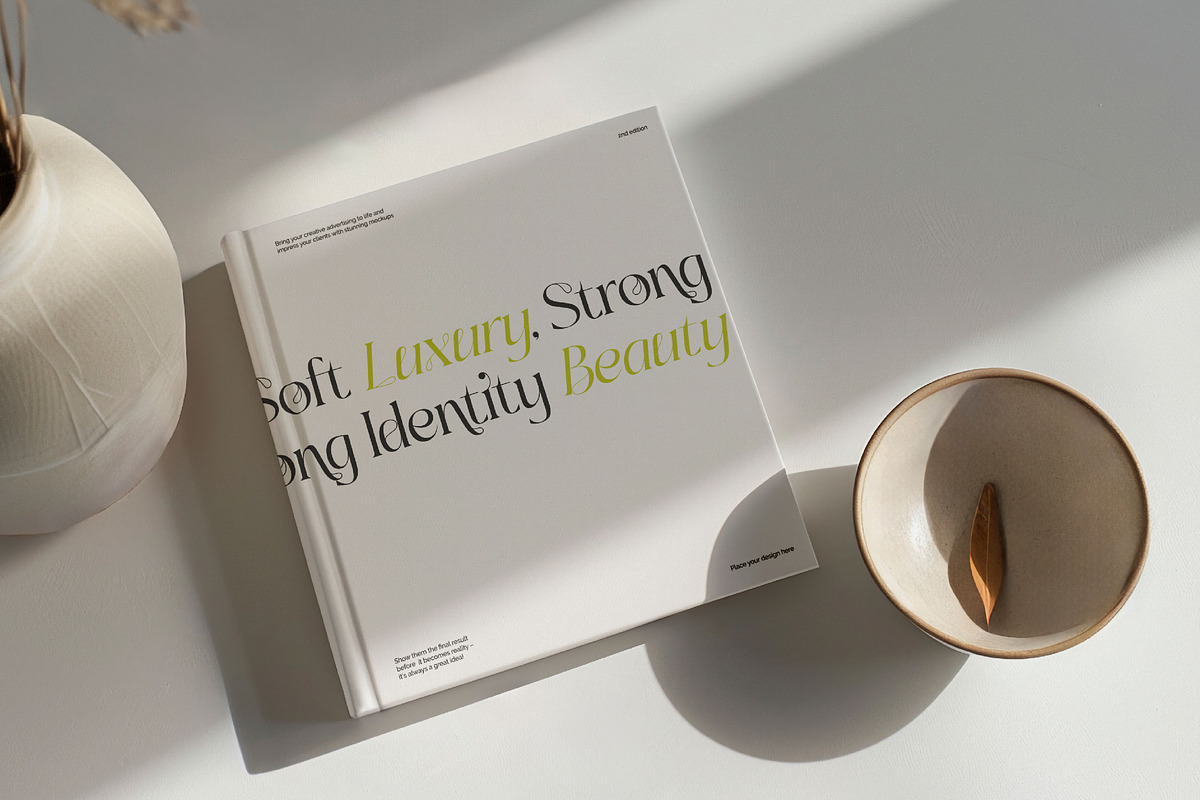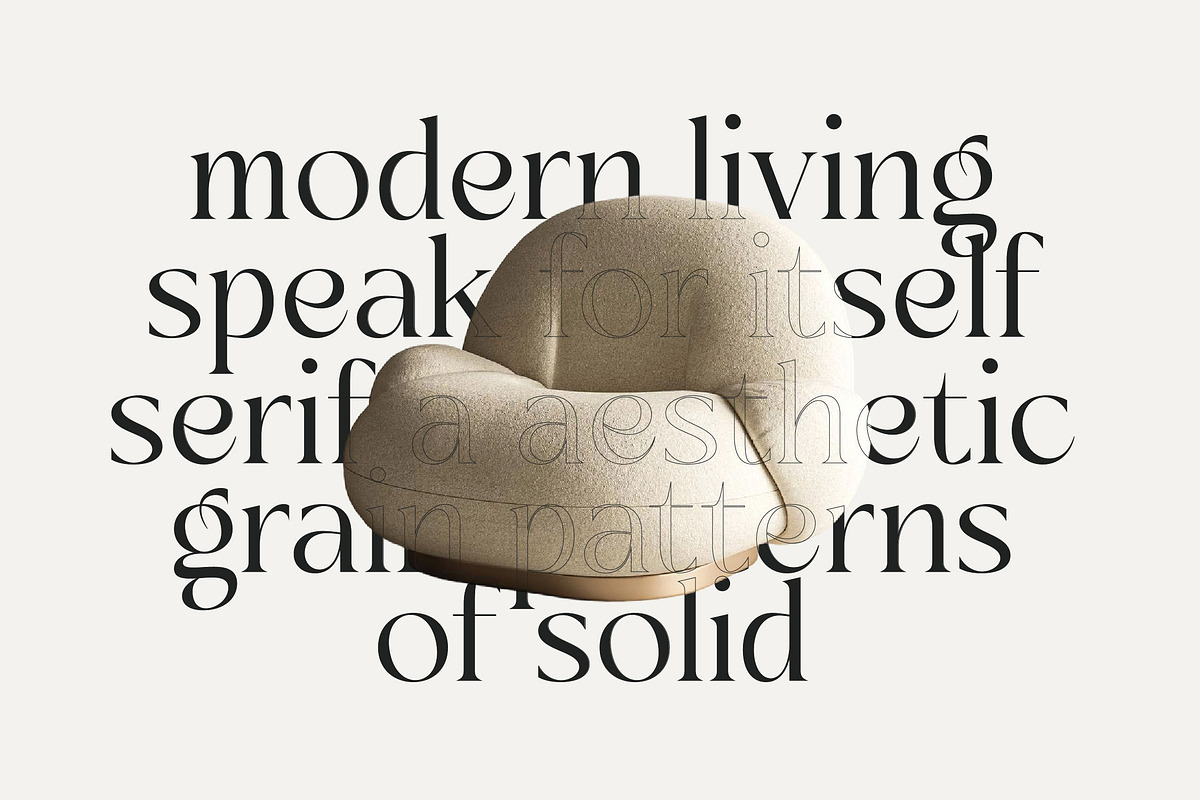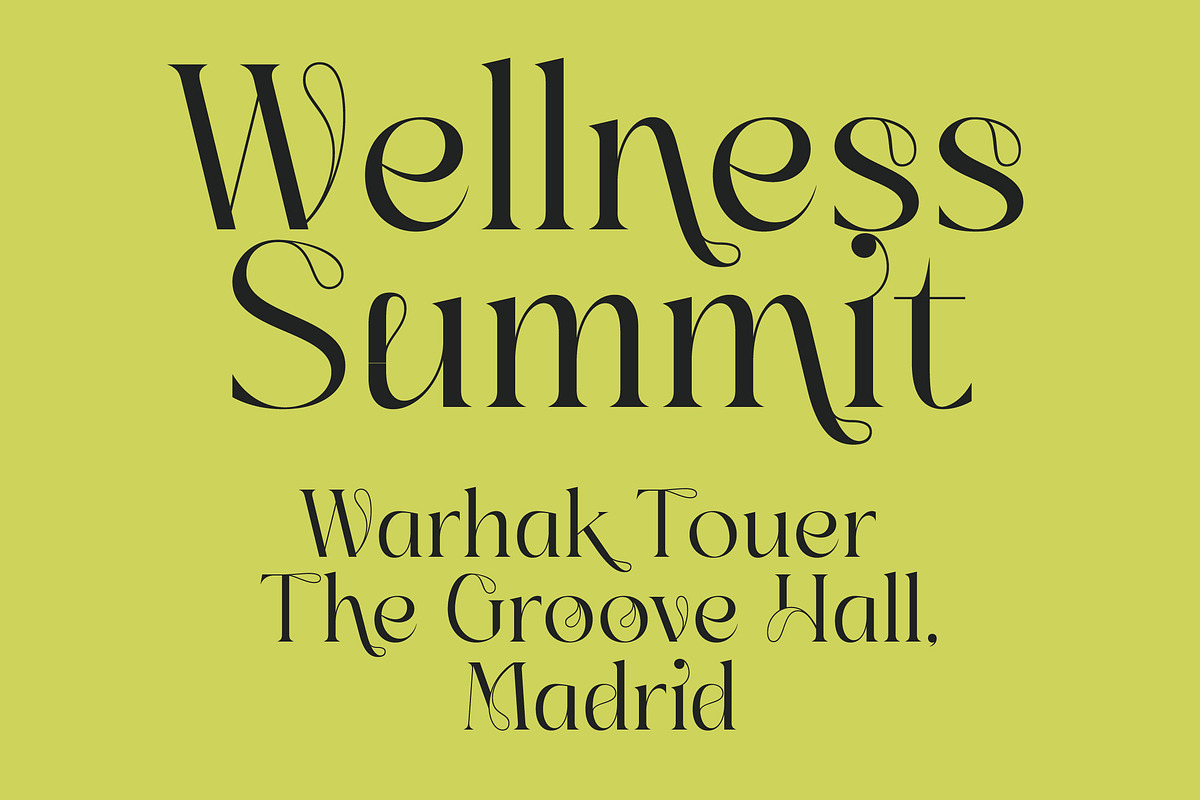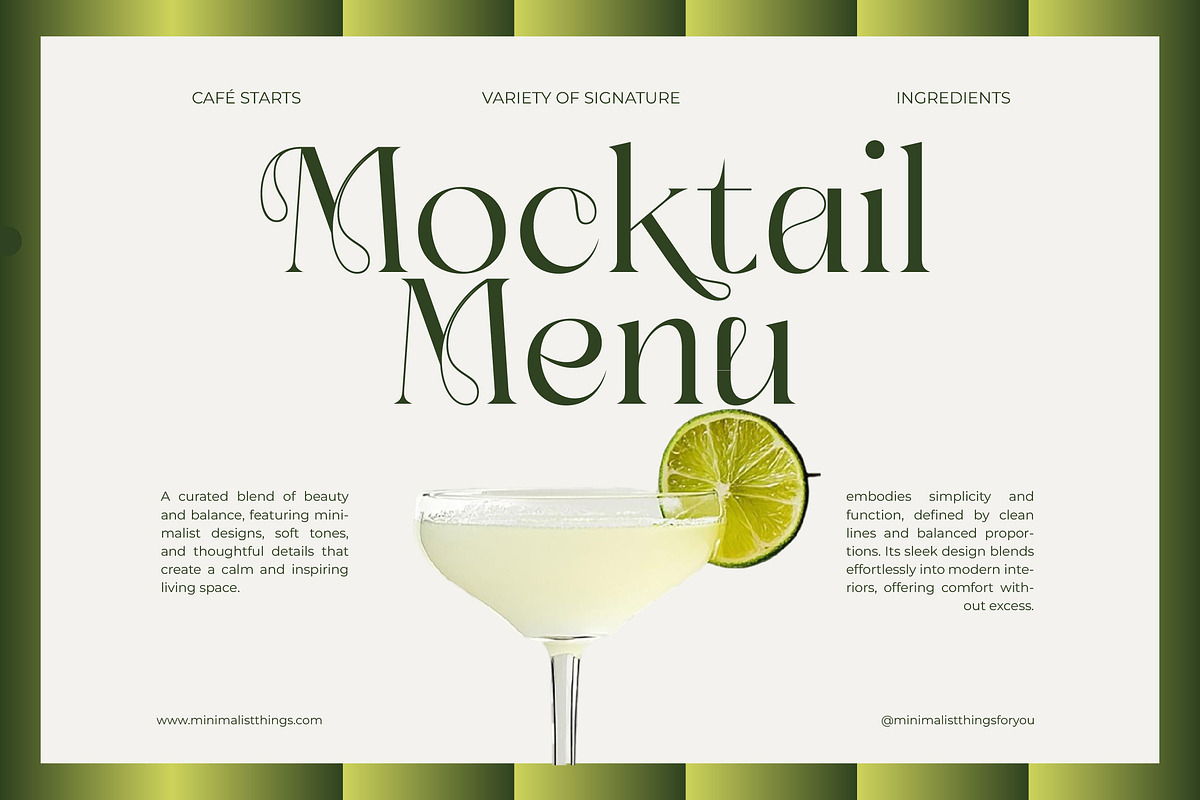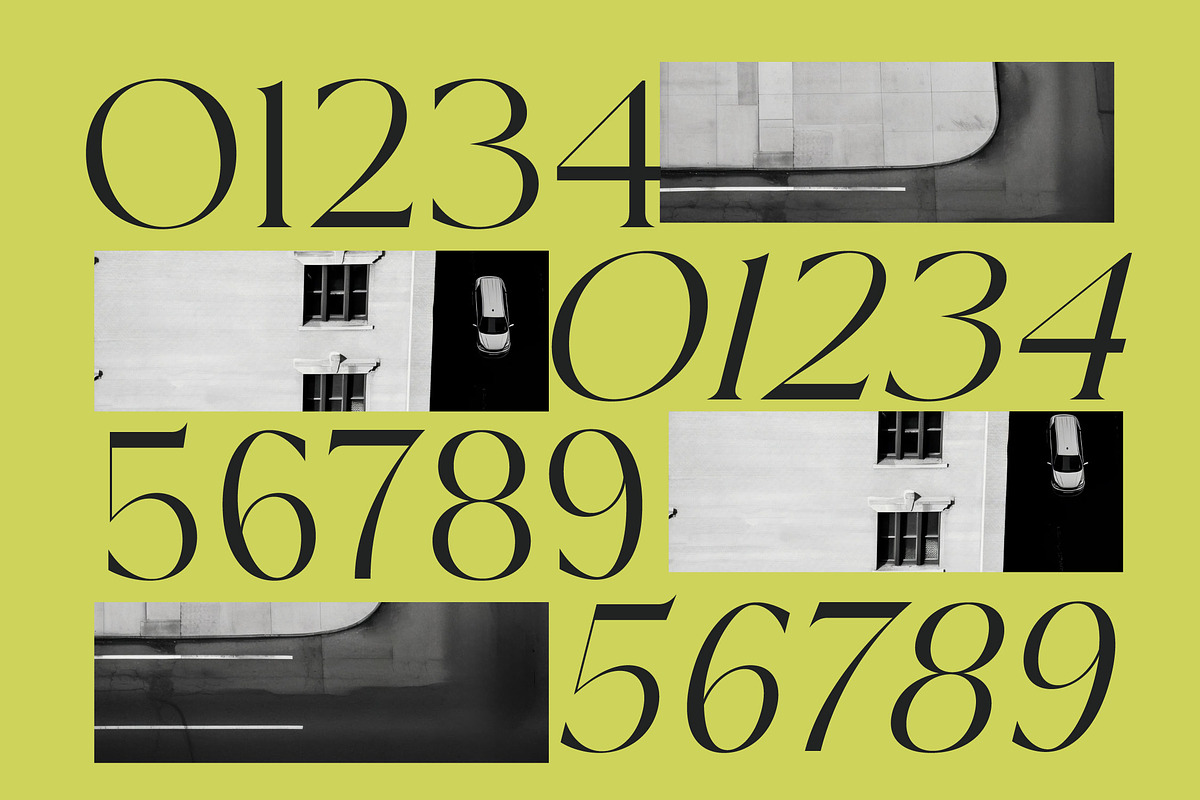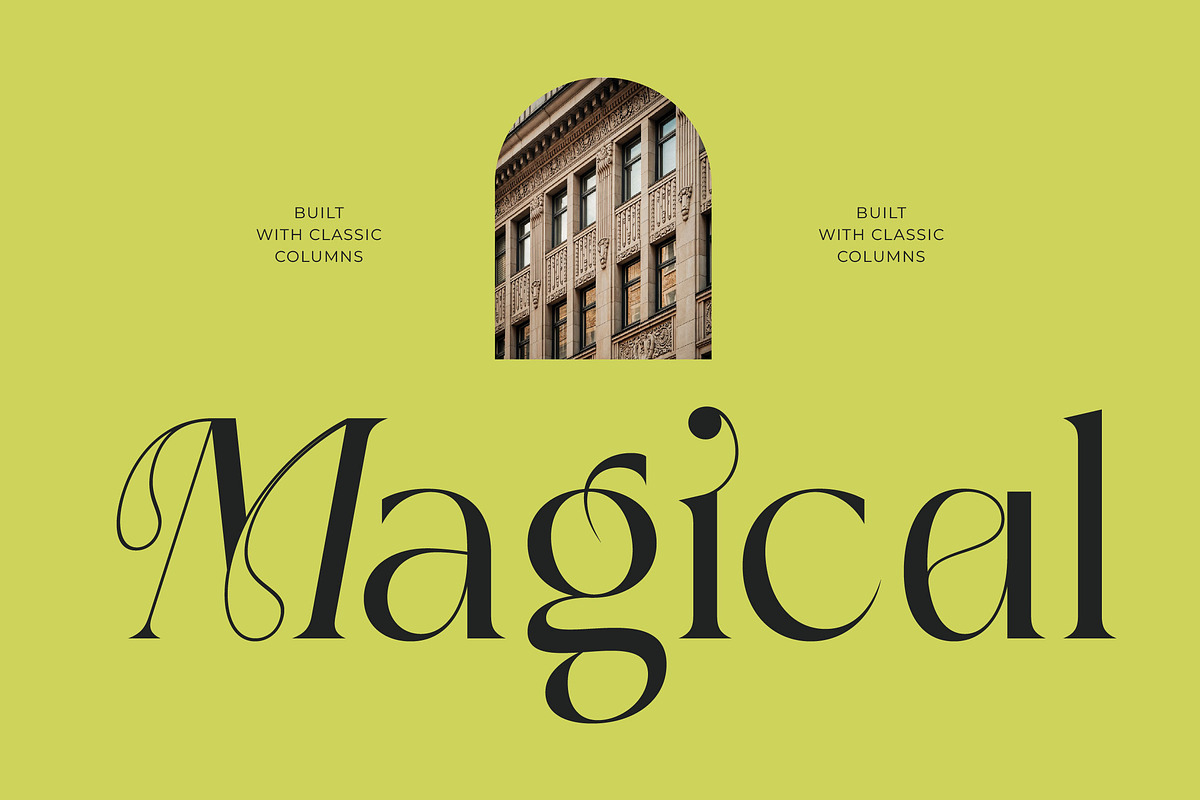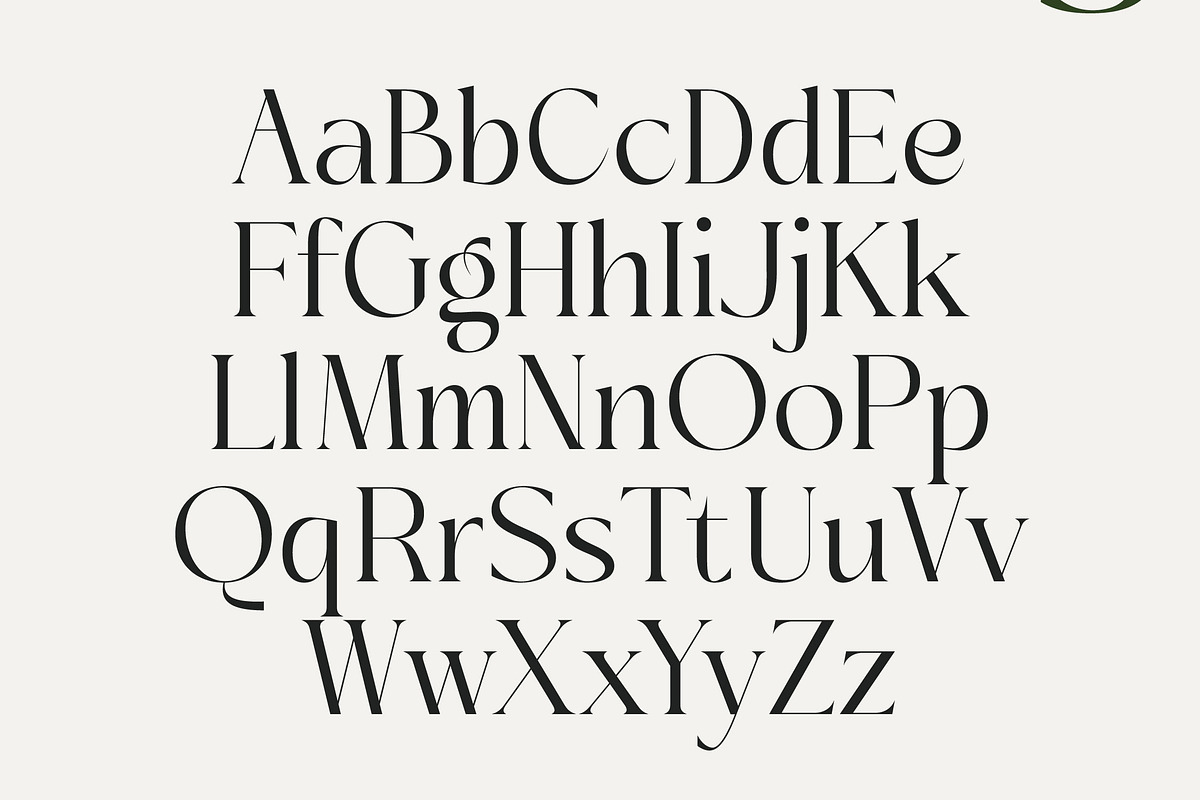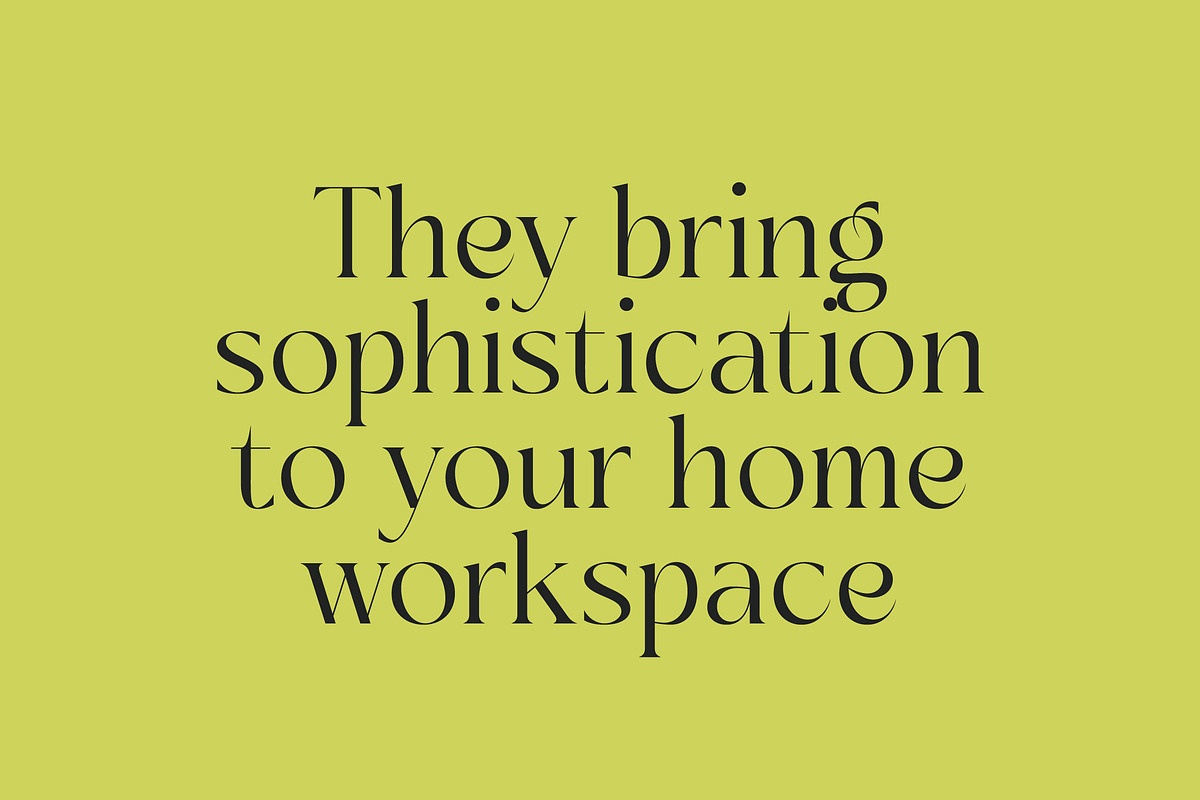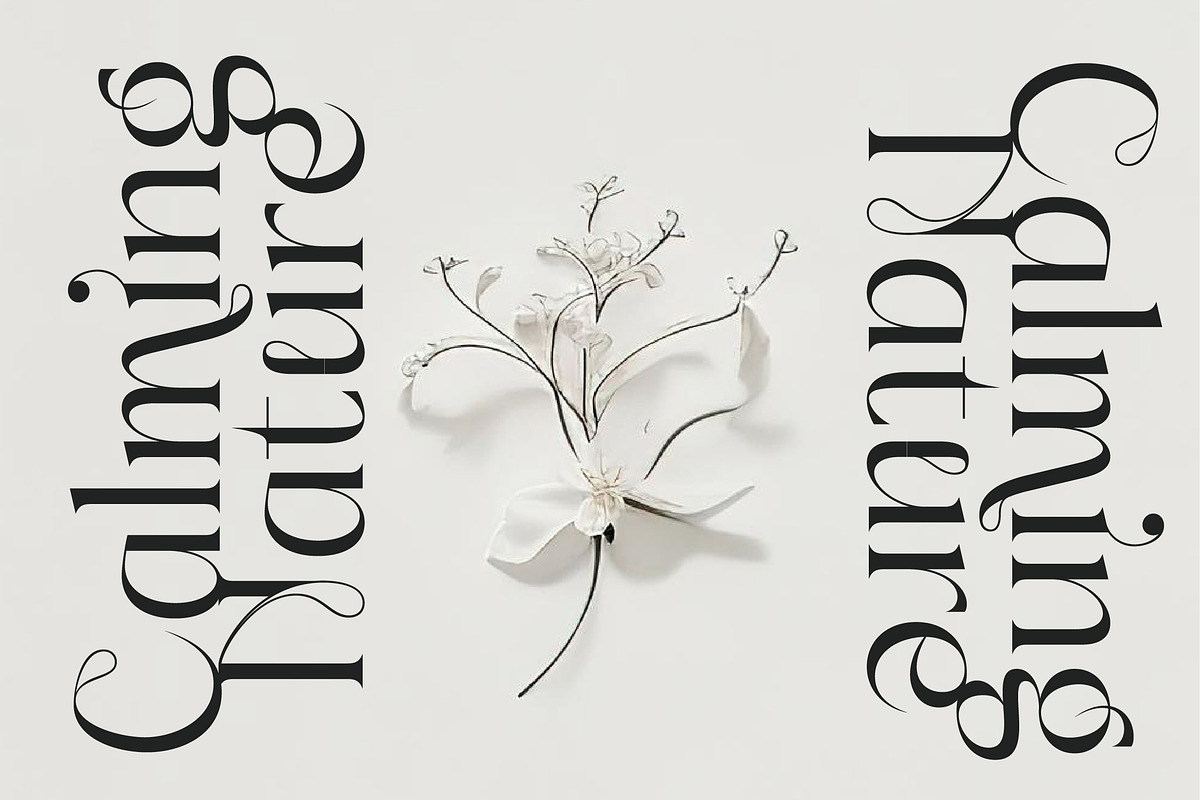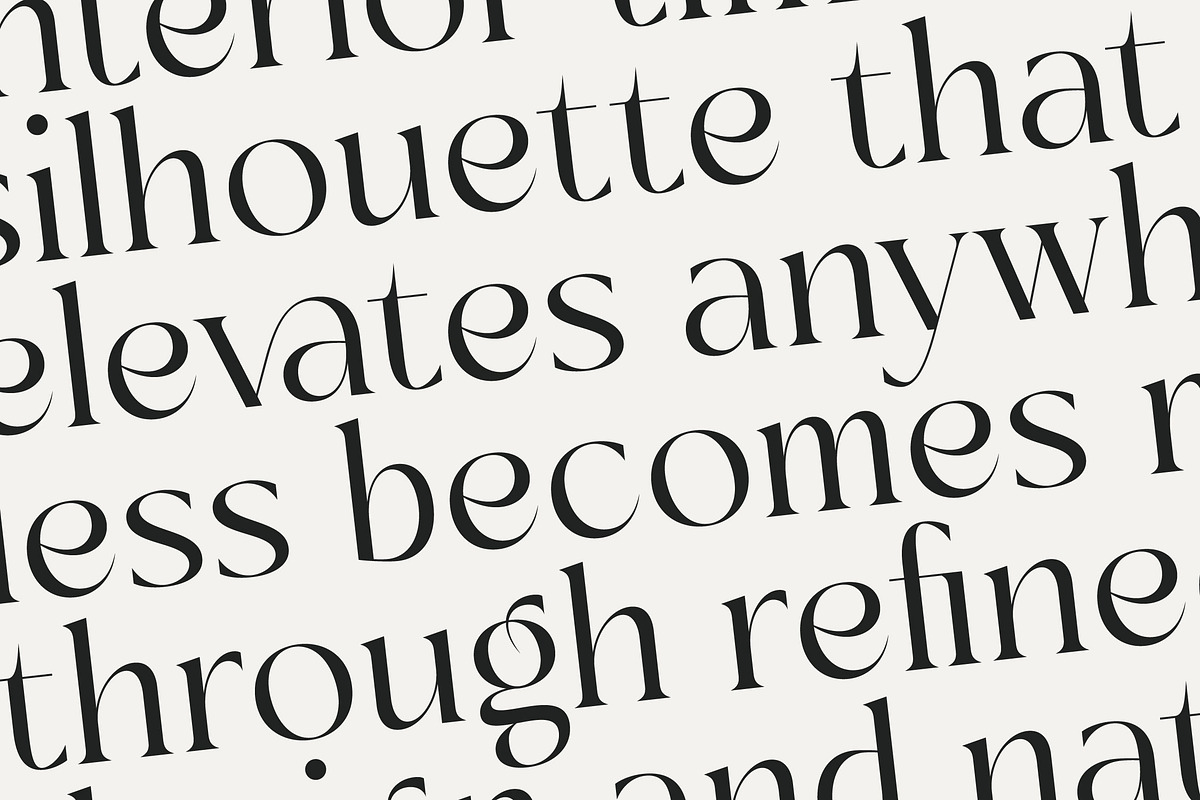
Sainer Bagora Modern Serif
Step into a world of refined aesthetics with Sainer Bagora, a typeface designed to transcend the ordinary through its exquisite balance of classic form and modern flair. This font is crafted for creators who demand a signature look that is both authoritative and gracefully understated.
Born from the intersection of minimalist architectural lines and the fluid silhouettes found in high-fashion couture, this font evokes an atmosphere of timeless sophistication. Its visual narrative is one of quiet power, making it the perfect companion for projects that require a touch of intellectual luxury.
This modern serif display provides a masterclass in luxury typography, featuring a high-contrast serif structure that creates an immediate and lasting branding impact. Its sharp serifs and elegant curves make it an indispensable editorial font for those looking to define the visual standards of tomorrow.
Capturing the essence of the current modern serif trend, this typeface is a versatile tool for implementing character-driven typography across digital and print mediums. It stands at the forefront of contemporary editorial display fonts, offering designers a way to inject personality into every headline and layout.
From a prestigious logo design to cohesive global branding initiatives, this typeface excels in high-stakes environments like luxury packaging and high-end editorial features. It is equally at home in the world of boutique wedding invitations and avant-garde fashion lookbooks, ensuring a premium feel every time.
Experience creative freedom with an expansive suite of ligatures and unique alternates that allow for custom-tailored typographic compositions. Complemented by artistic swashes and comprehensive multilingual support for international characters, it offers technical excellence alongside its stunning visual appeal.
Numerals
Punctuations (OpenType Standard)
Accents (Multilingual Characters)
Ligatures and Alternative Style Stylistic Set